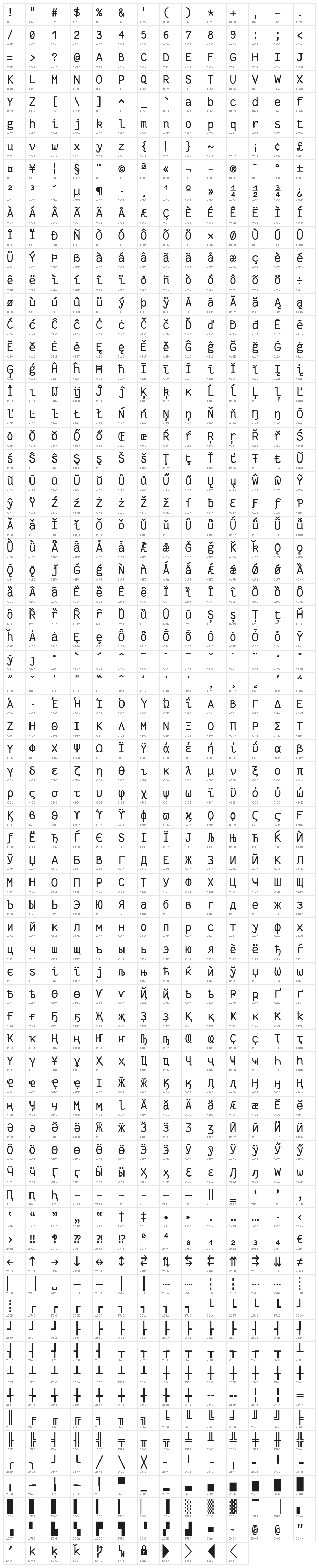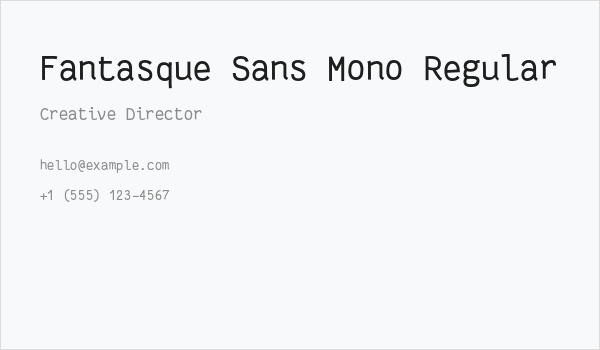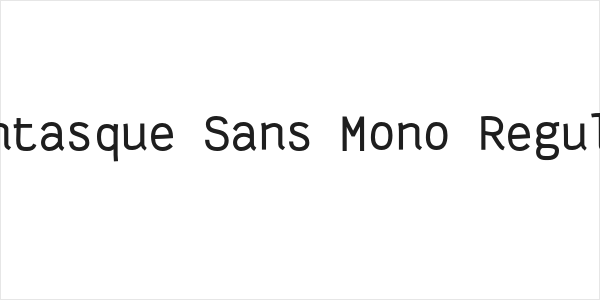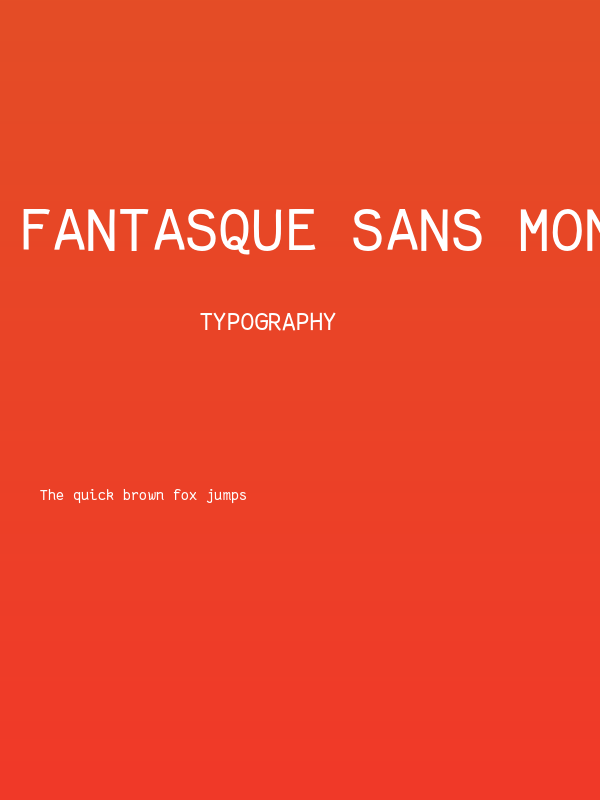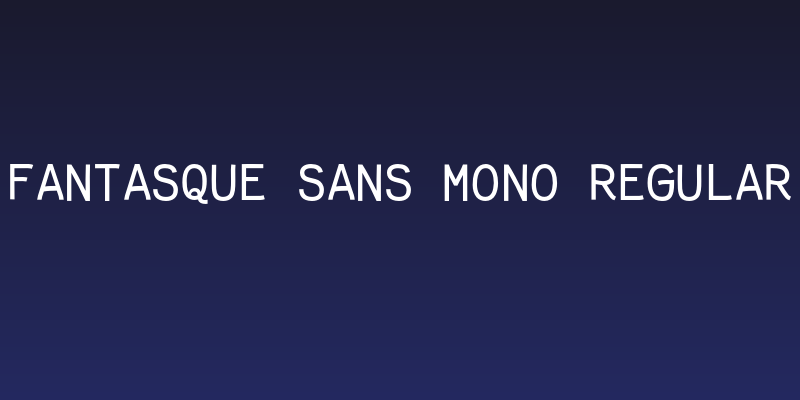
Fantasque Sans Mono Regular Font
Fantasque Sans Mono Regular Description
This font features a monospaced design with a playful and slightly quirky aesthetic. Each character is evenly spaced, making it ideal for coding and technical documentation. The rounded edges and subtle curves give it a friendly and approachable feel, while maintaining clarity and readability. The uppercase letters are bold and assertive, while the lowercase letters have a more relaxed and casual appearance. Numbers are clear and distinct, ensuring easy differentiation. Special characters are well-defined, supporting a wide range of uses.
| Use Case | Coding, Technical documentation |
| Proposed Projects | Suitable for coding environments, technical documentation, and any project requiring a monospaced font with personality. |